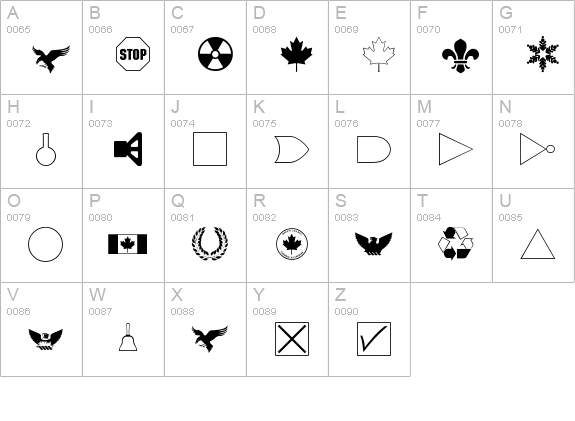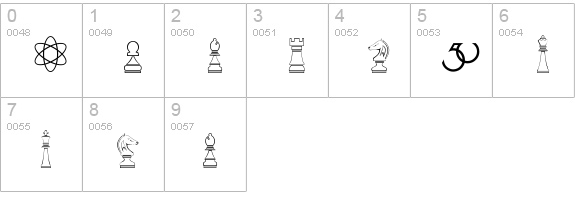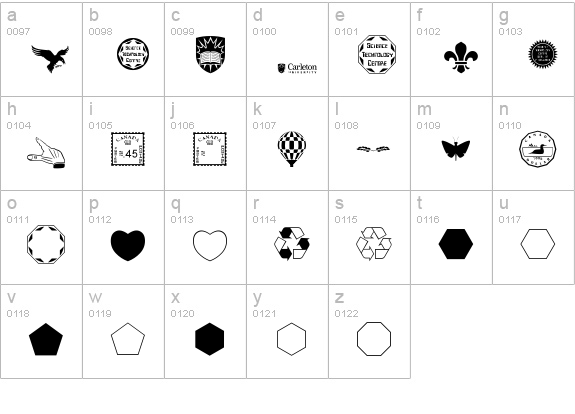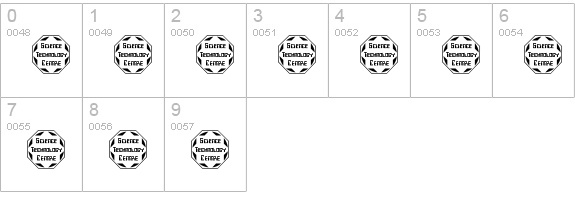
CU_SYMBL Font Details
CU_SYMBL font is a modern and elegant typeface that exudes creativity and sophistication. With its sleek lines and unique design, this font is perfect for adding a touch of style to any project. Whether you're designing a logo, creating a poster, or crafting a website, CU_SYMBL font will make your text stand out. The best part is that CU_SYMBL font is completely free to download at FontsMarket.com. This means you can easily access this stunning font and use it in your projects without any cost. Don't miss out on the opportunity to enhance your designs with the beauty and versatility of CU_SYMBL font. Download it today and elevate your typography game to new heights.